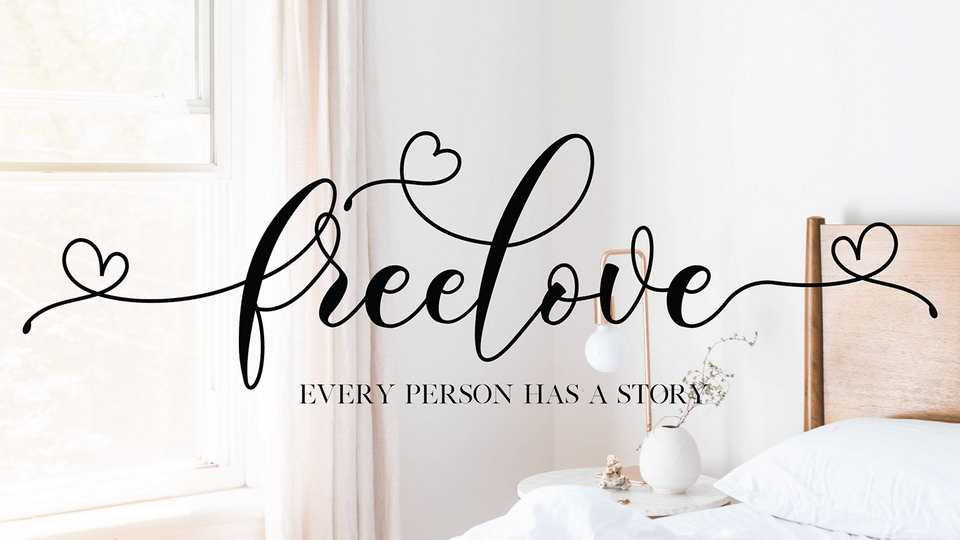
Download Freelove font, a beautiful and charming script with lovely swashes. Freelove font will add a unique flavor to wedding and romantic designs, letters, cards and other crafts.